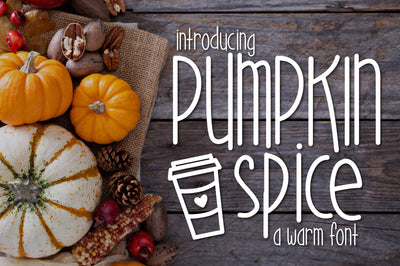
Pumpkin Spice
Pumpkin Spice is a perfect handwritten font to add some spice to any project! This font includes both upper and lowercase letters and some great warm doodles!